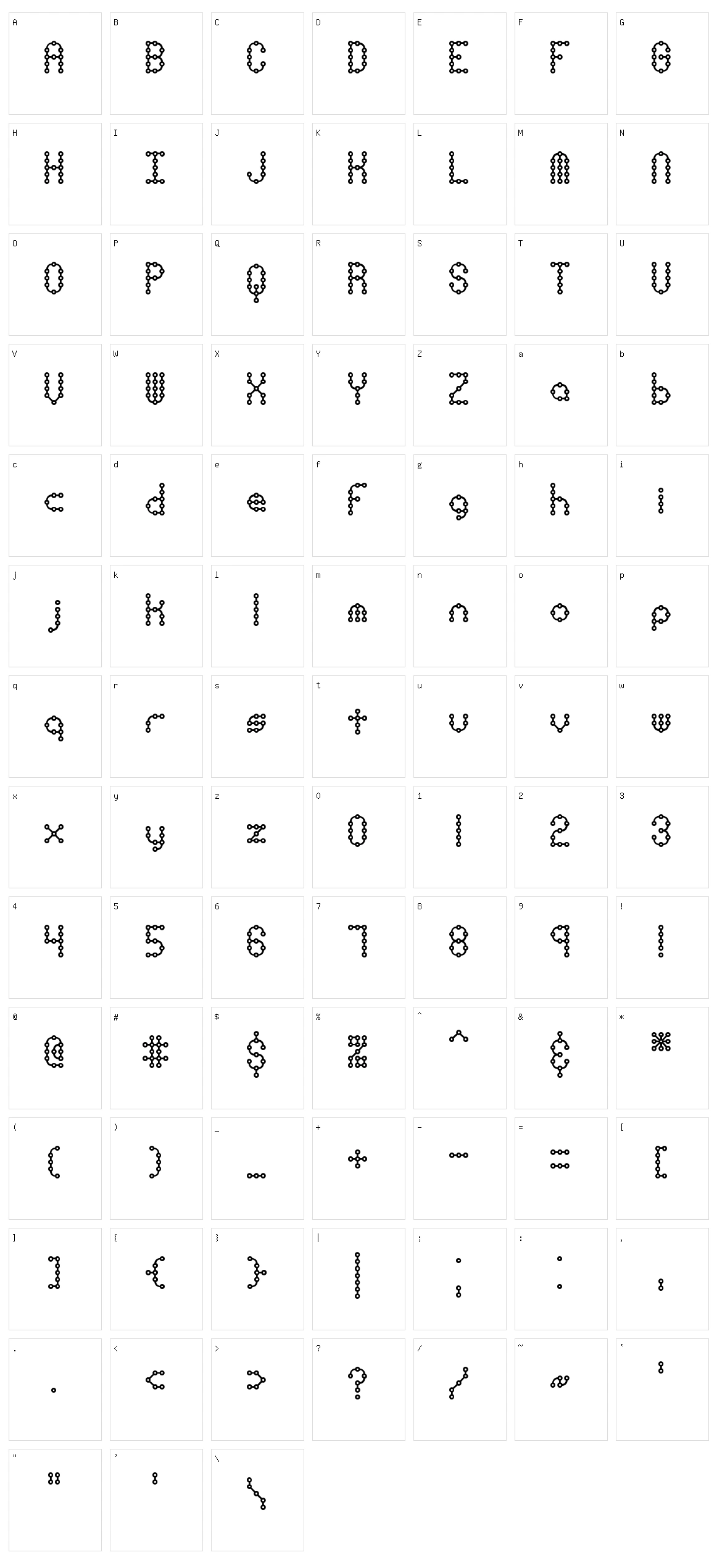
Pindown Created by Brian Kent
-Pindown [3D with dots]
-Pindown Plain [with dots]
-Pindown X [3D without dots]
-Pindown X Plain [without dots]
-This font is best used at larger Point Sizes.
-To make a 'Dotted' space when using the 'Pindown' and 'Pindown Plain'
fonts, use ` [grave]. This will make a single Vertical line of 7 dots.